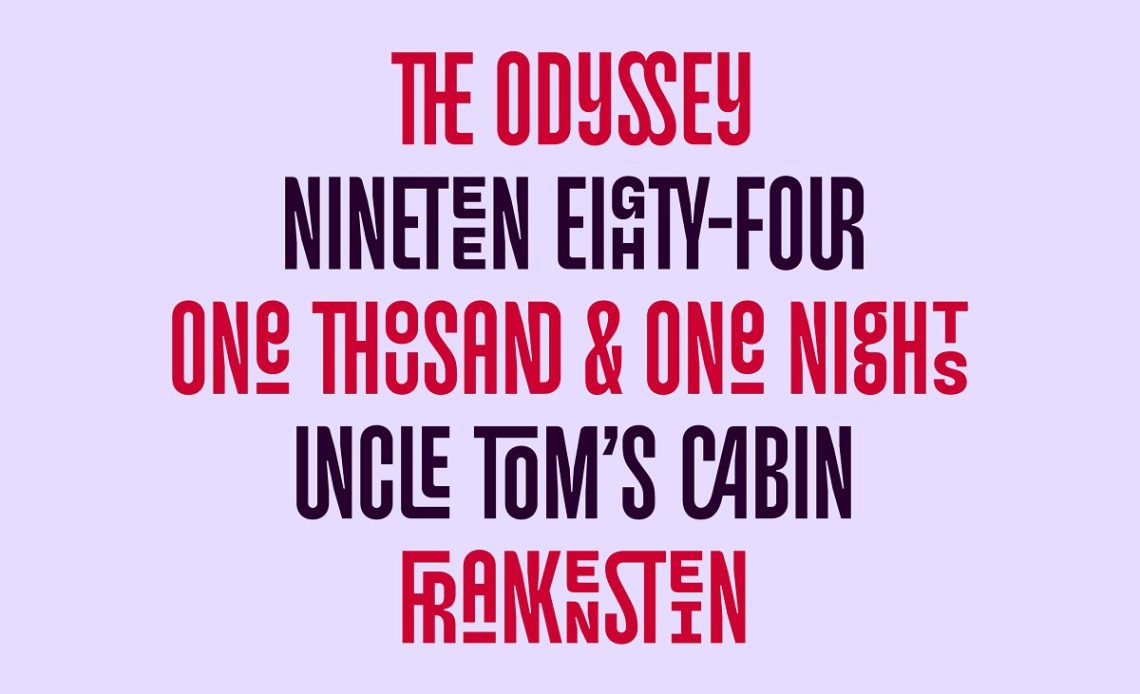
Are you in search of a font that's simple, yet striking and unique? Look no further than Monologue Font. This condensed sans serif font created by Yusril Muhtadi is the perfect choice for headlines, billboards, magazines, websites, titles, posters, branding, and logos.
But Monologue Font isn't just any ordinary font. It has bold and complex personality that adds character and depth to any design project. Its condensed letterforms allow for maximum impact, even in small point sizes. And with its extensive language support, including Cyrillic alphabet for Slavic languages, this font is perfect for any project that requires multilingual typography.
But that's not all! Monologue Font also comes with a wide range of features that allow you to customize your design to your heart's content. With stylistic alternates and sets, discretionary ligatures, preconstructed fractions, superscripts and numerals, and more, the possibilities are endless.